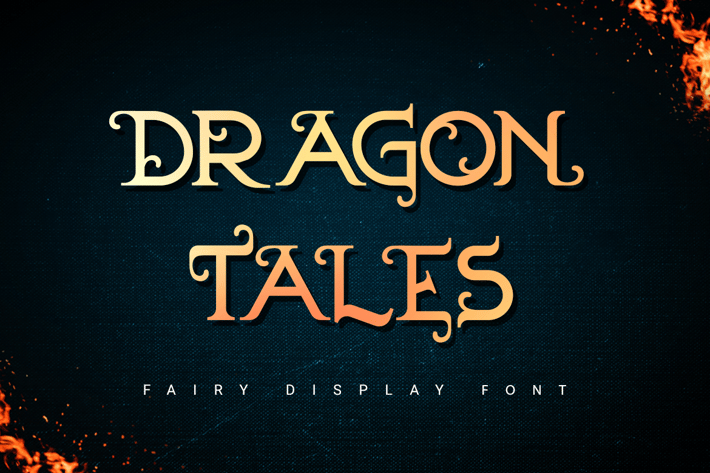
Dragon Tales | fairy font
Dragon Tales is a serif font designed in the style of a fabulous beautiful dream world. The font has fancy curls, it works great to make short titles. The font looks good on both dark and light backgrounds.
▪ latin capital letters
▪ numbers
▪ special characters set